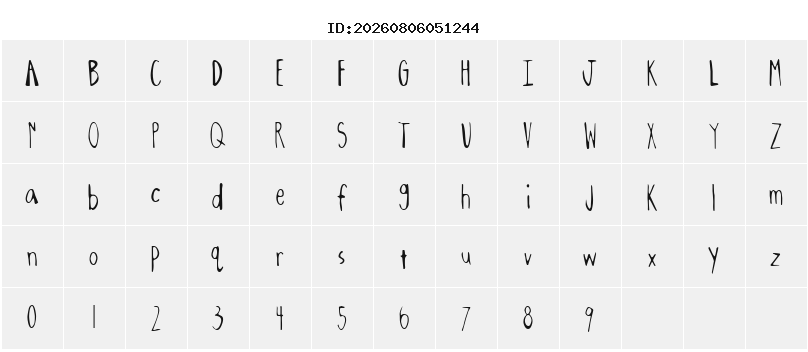
About Oxalic.ttf
Oxalic.ttf is a modern, elegant sans-serif font designed for ultimate readability and visual harmony. Perfect for branding, headlines, web design, and print materials.